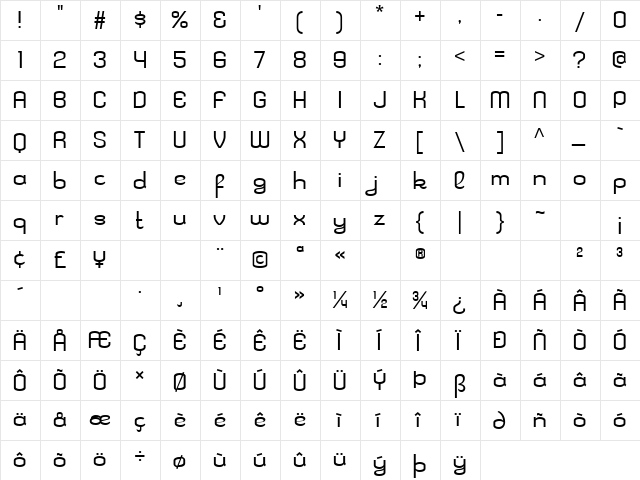
Kleptocracy Expanded Light Regular
Design Context for Kleptocracy Expanded Light Typeface
Kleptocracy Expanded Light is a composed and adaptable typeface that performs quietly and consistently across a wide range of design contexts. The delicate stroke weight brings airiness and refinement to layouts.